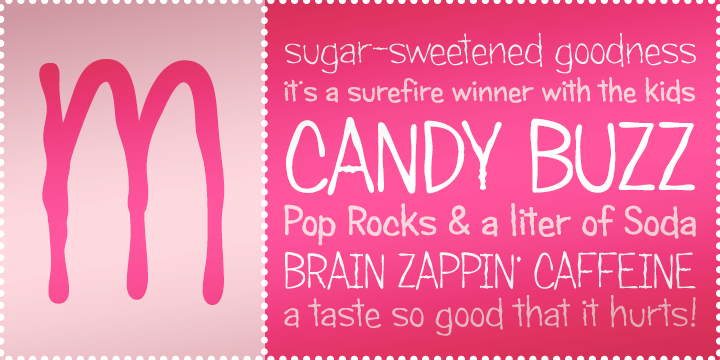
Candy Buzz BTN
Candy Buzz BTN is a lively display family inspired by vintage confectionery packaging, reimagined with a brighter, more energetic personality. As the jumpy, sugared-up cousin to the classic Candy style, it blends nostalgic charm with a fresh modern appeal. Its playful rhythm and upbeat character make it a strong choice for candy and food packaging, kids' products, party materials, posters, branding, signage, and cheerful editorial design. Designed to stand out while remaining readable, Candy Buzz BTN brings a sweet retro spirit to display work both large and small.